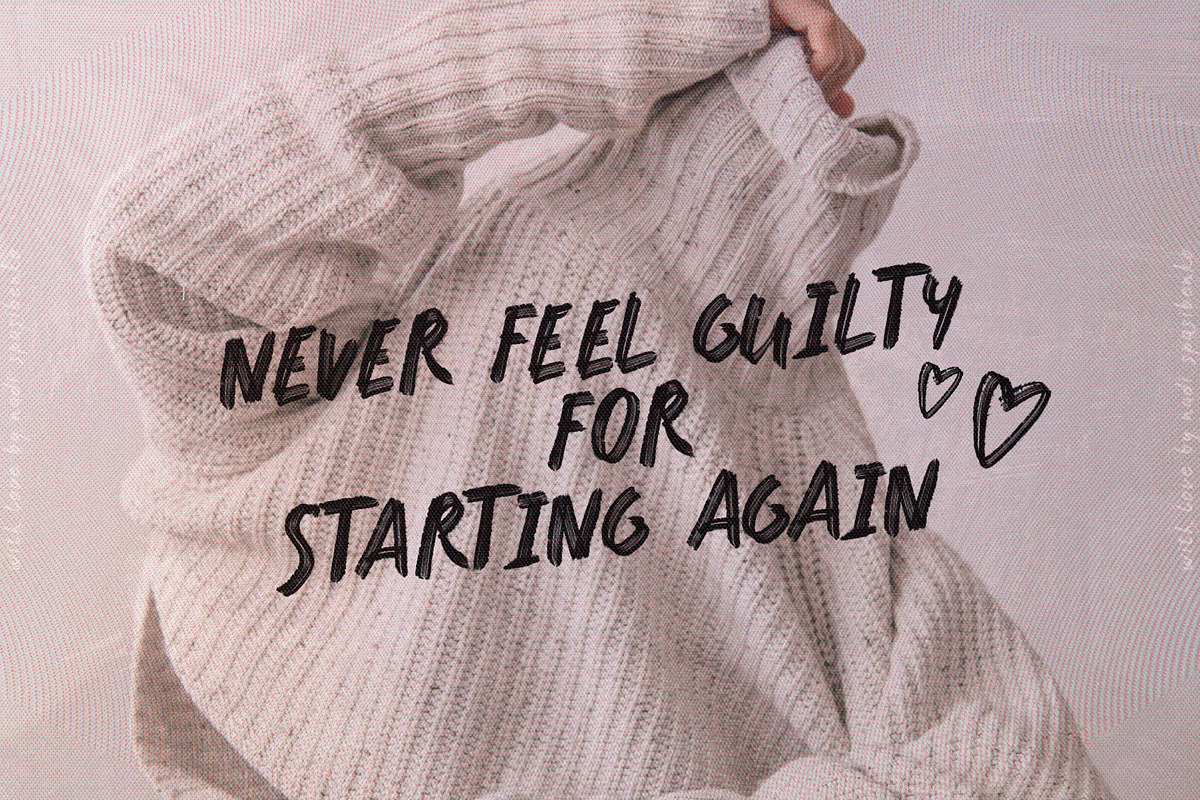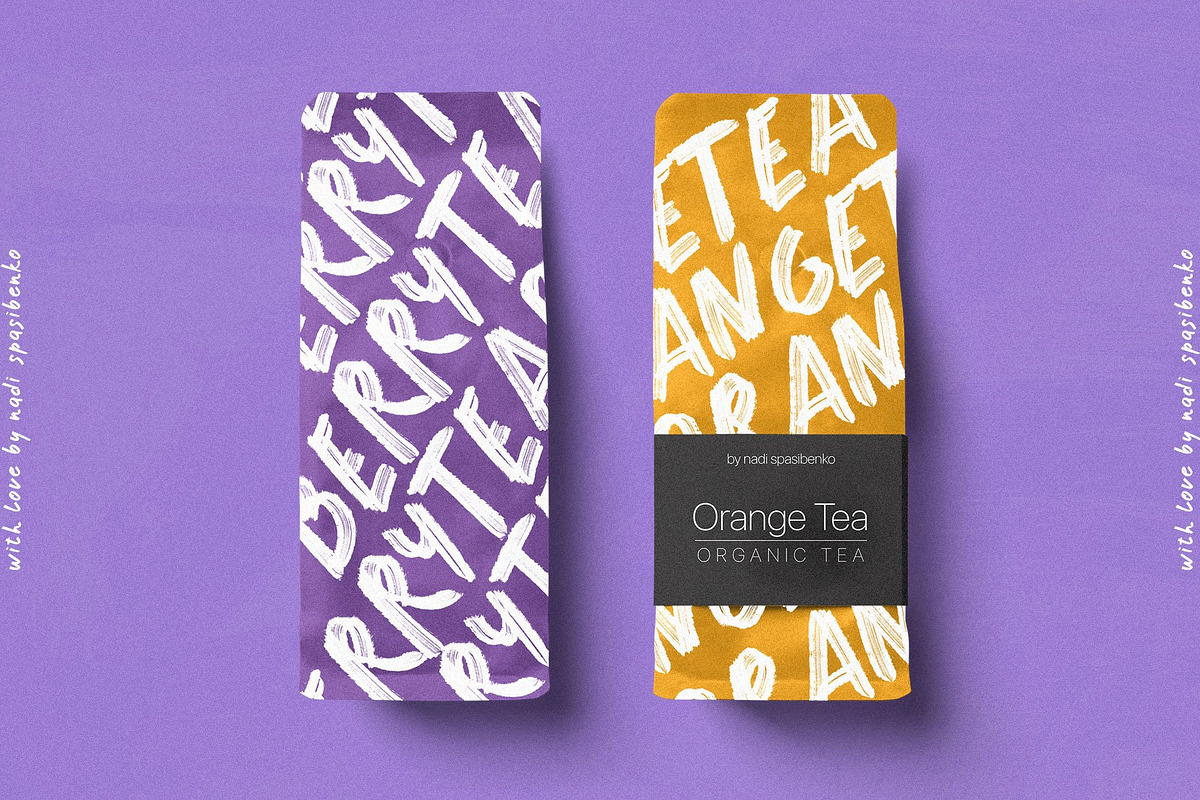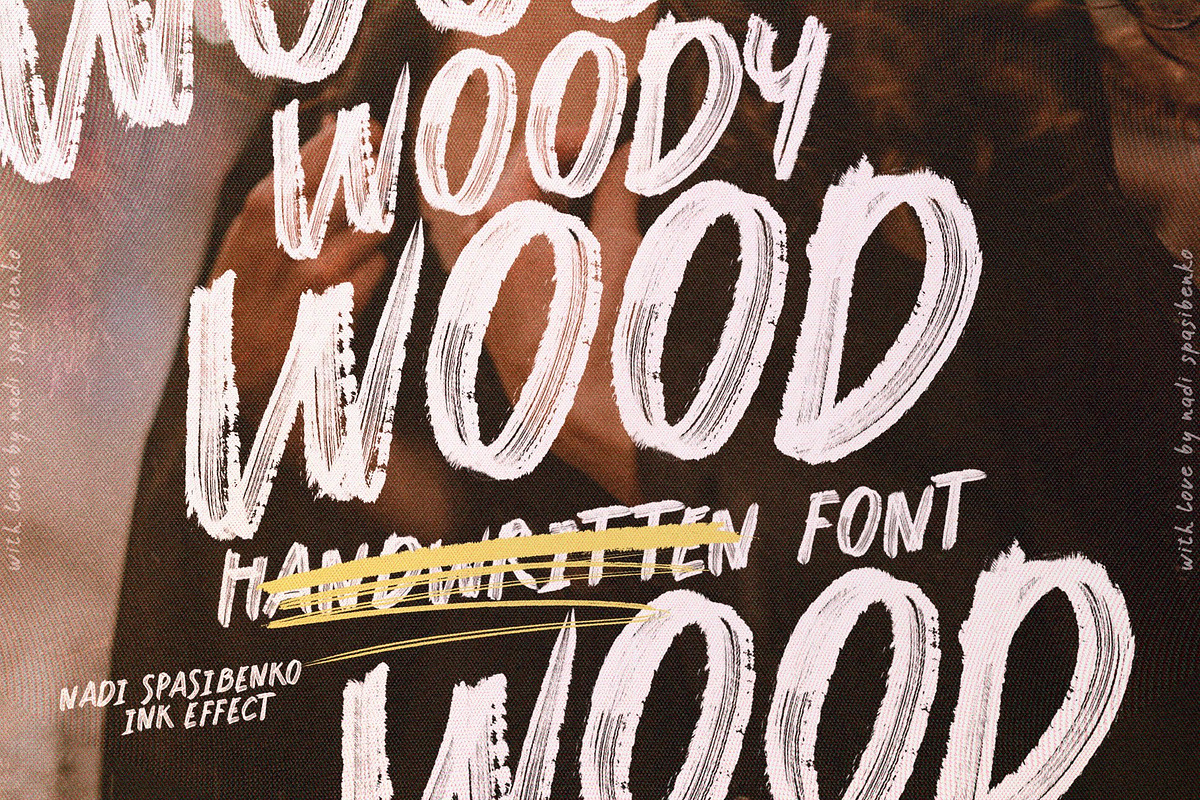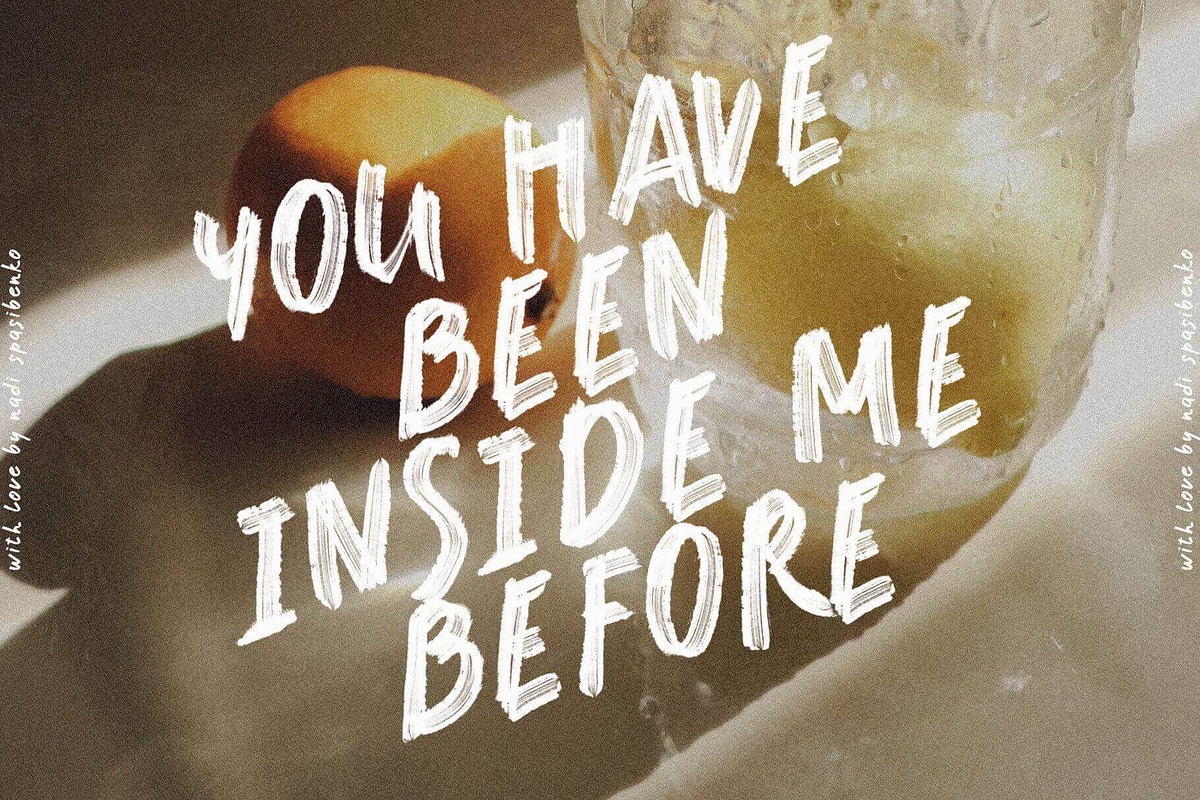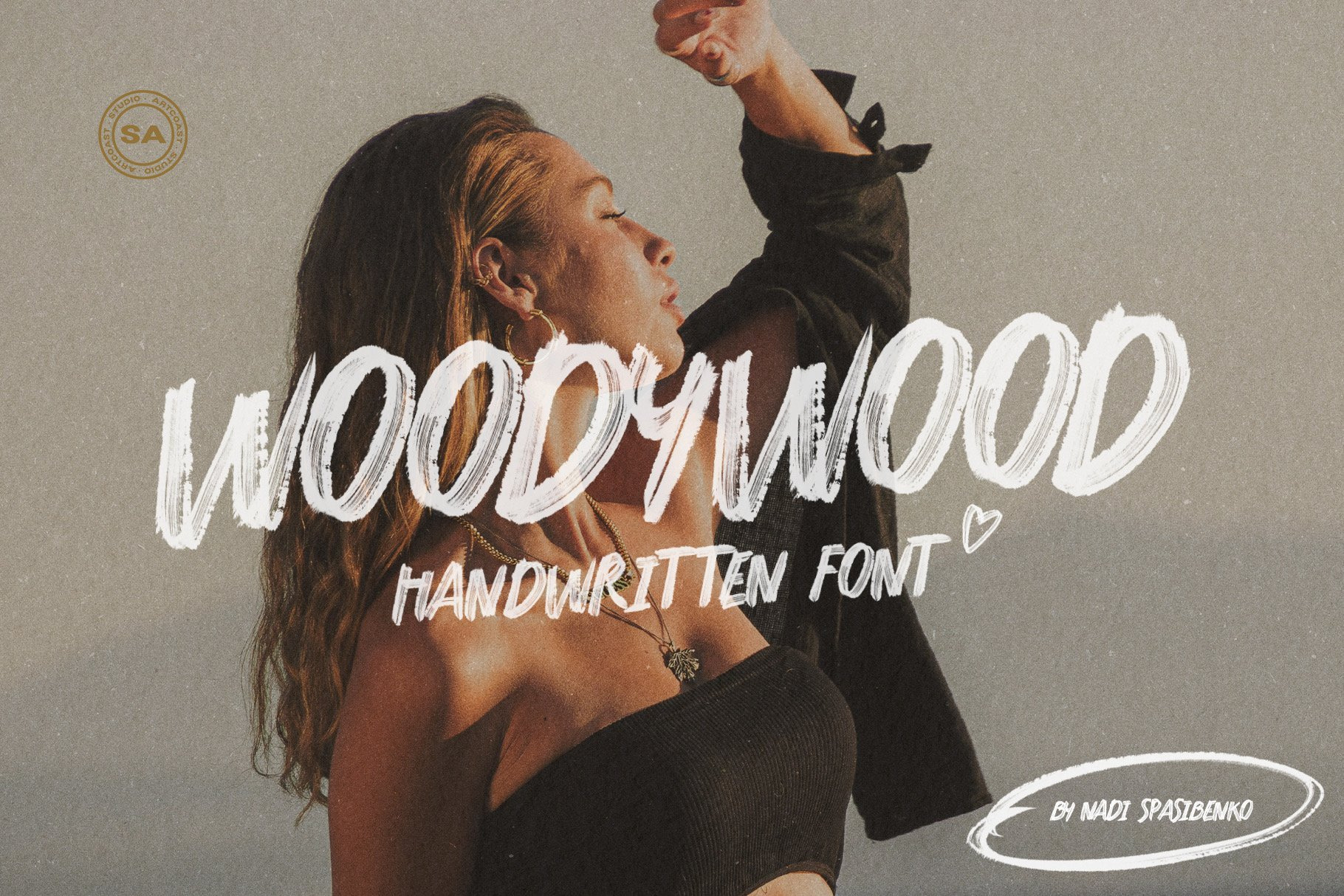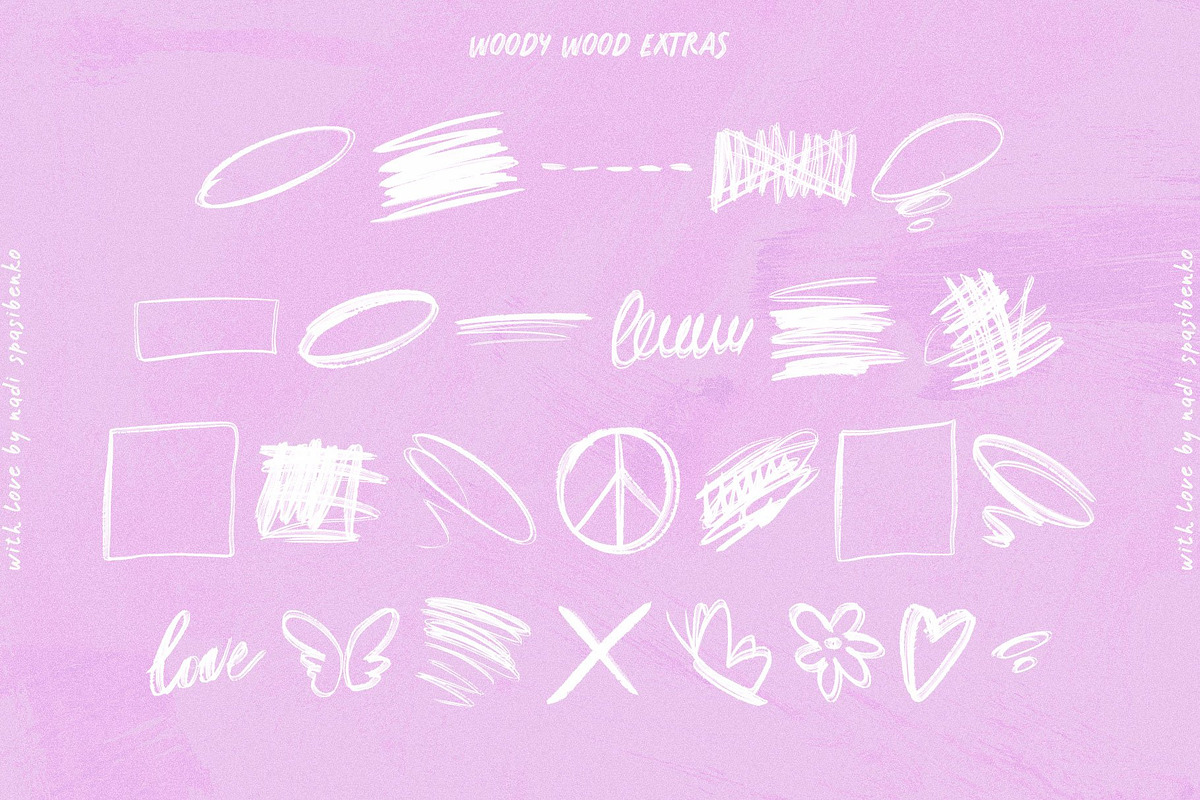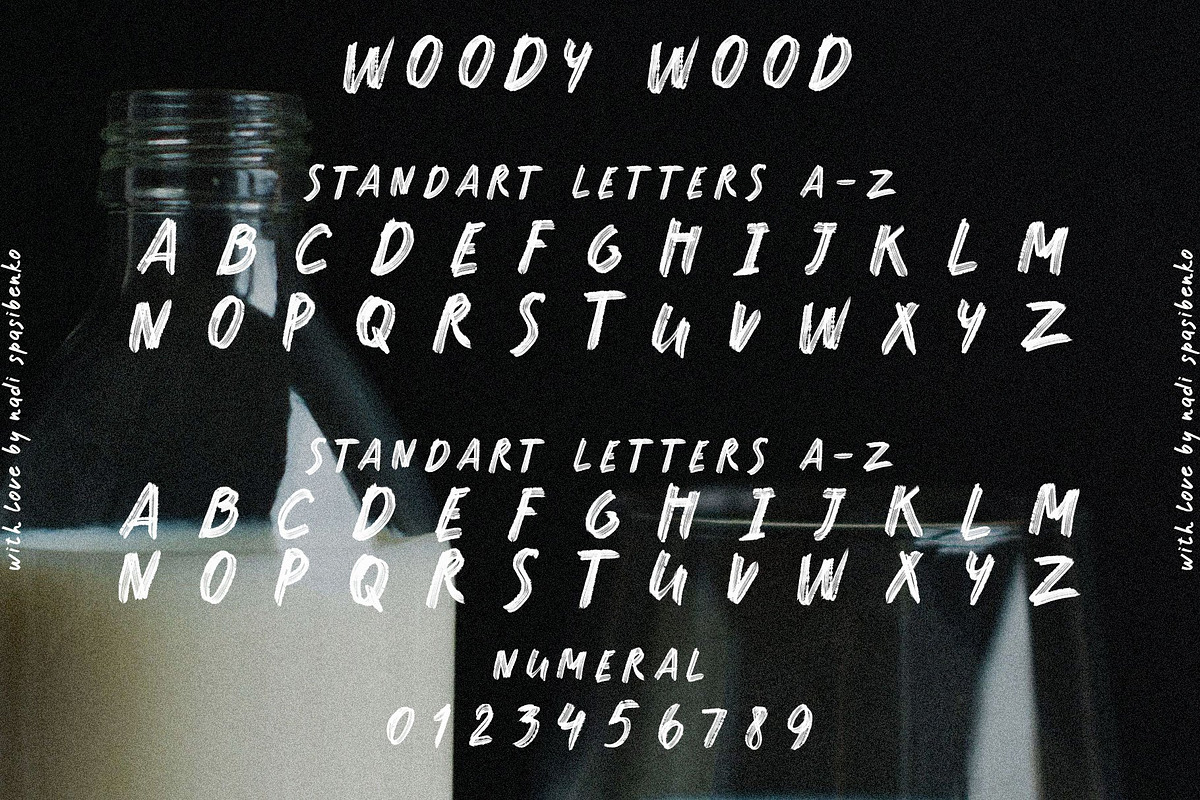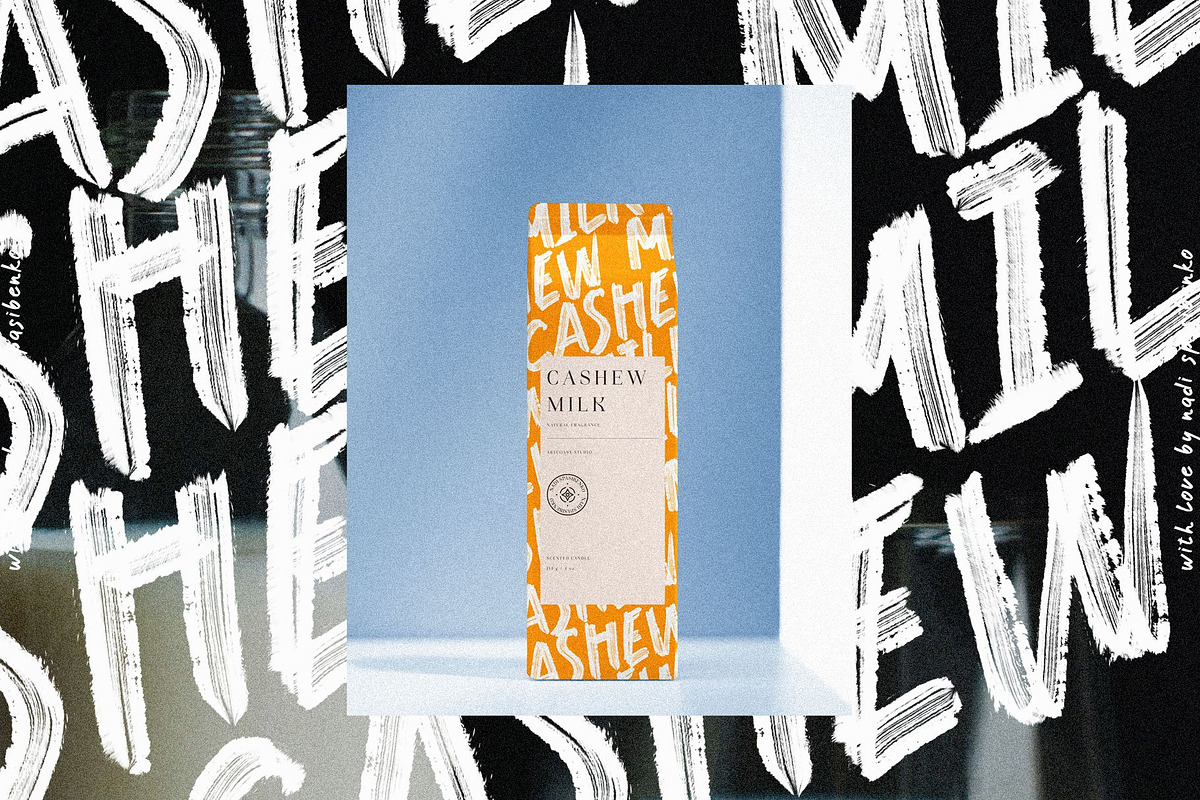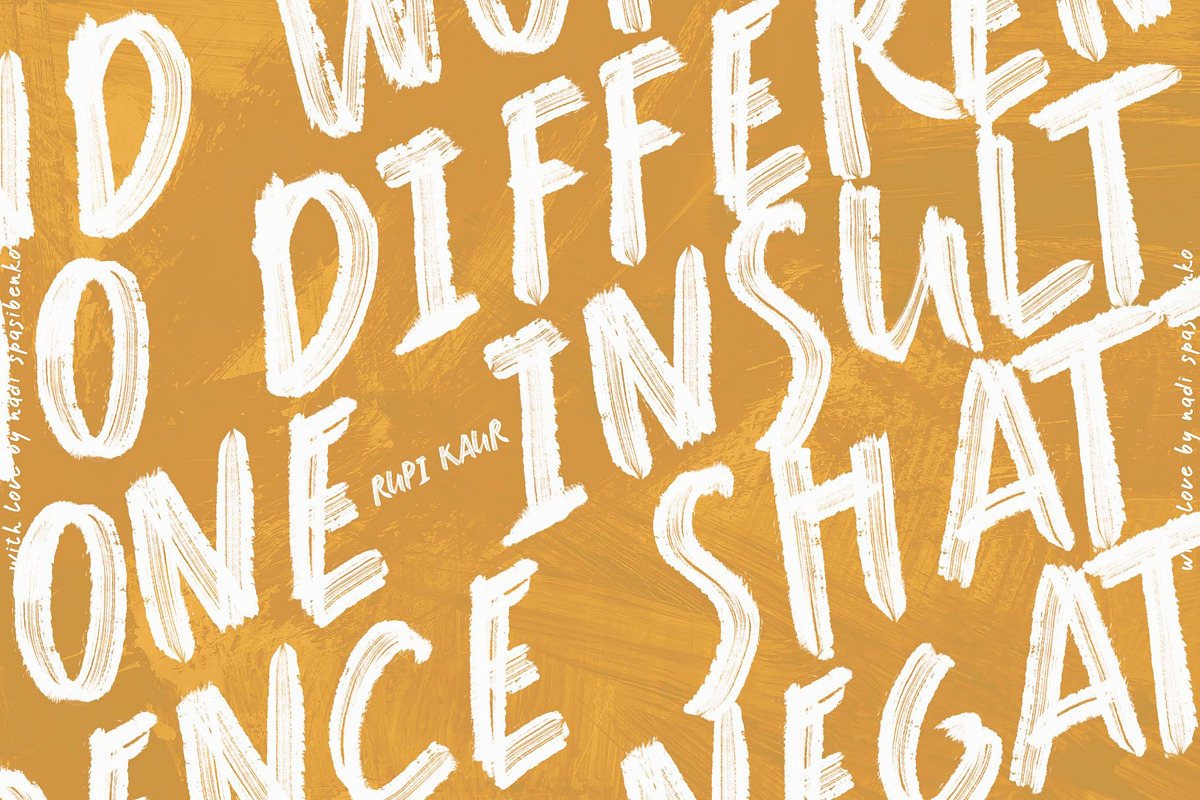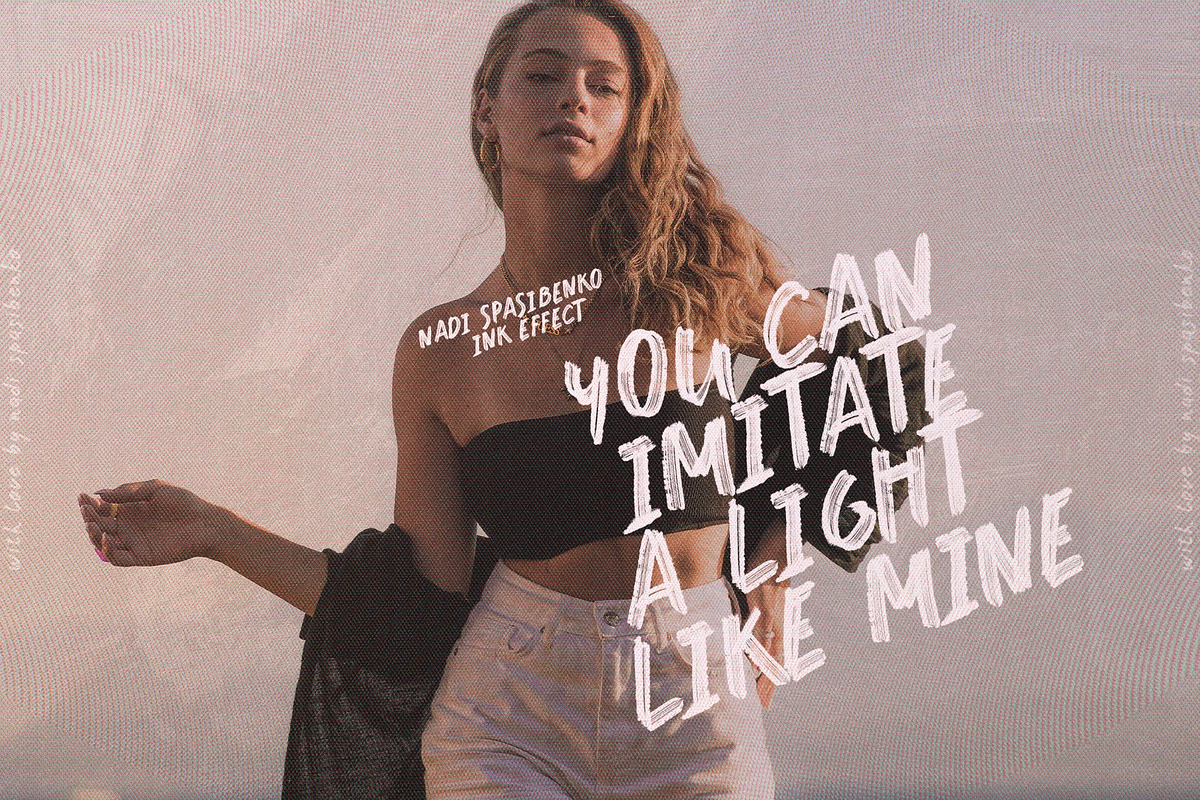
Woody Wood Font
Woody Wood
New Unique Bold Font with Pen and Ink Effect.
Beautiful Font created for posters, packaging, postcards, social media, inscriptions and quotes